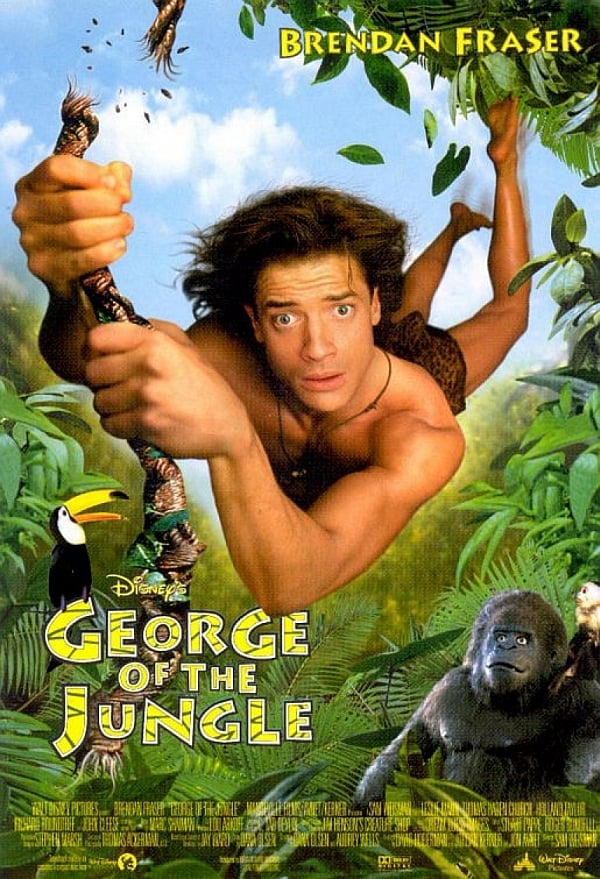
George of the Jungle (Film) Font
The George of the Jungle title is similar to a glyphic sans serif typeface called Lithos Black. Lithos was designed by Carol Twombly for Adobe Systems in 1989 and is based on the plain, geometric letterforms found on Ancient Greek inscriptions.